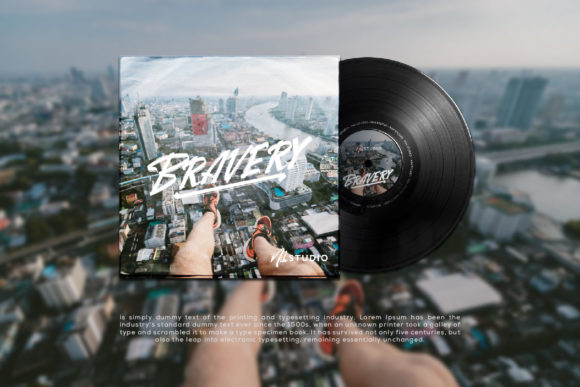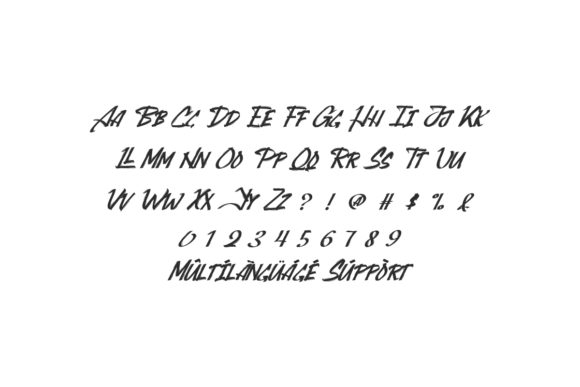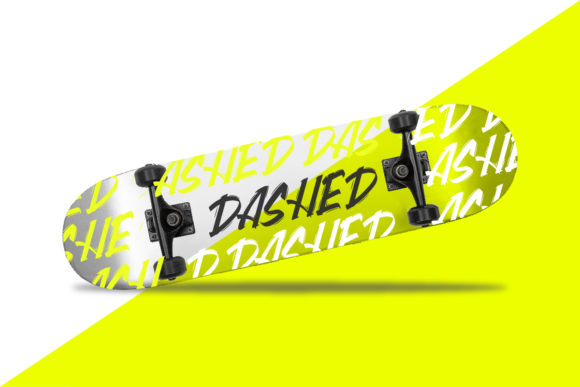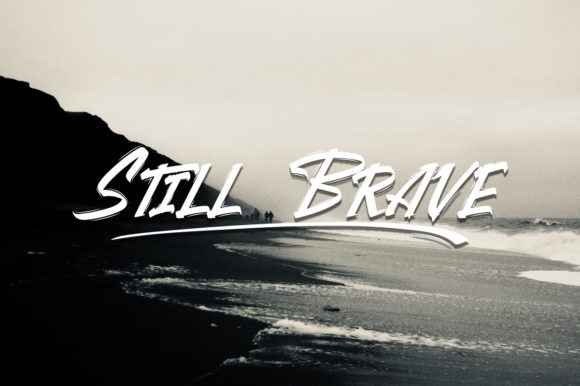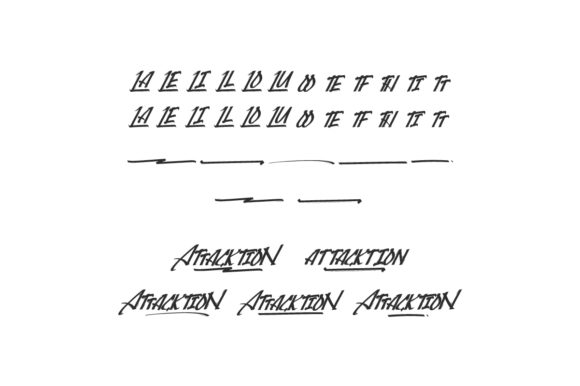
The Ultimate Guide to Attacktion Font: A Modern and Quirky Handwritten Gem
I’ll never forget the time I was working on a project for a client who wanted a bold, eye-catching headline that would make their brand stand out. I spent hours scouring font websites, but nothing seemed quite right. That was until I stumbled upon Attacktion Font. 💡
This modern and quirky handwritten font has been a game-changer for my design work, and I’m excited to share its awesomeness with you. Whether you’re a designer, crafter, or creative hobbyist, Attacktion is sure to become a favorite in your font collection.
Honest Review: What I Love (and a Few Quirks)
So, what makes Attacktion so special? Here are a few things I love about this font:
- ✨ Unique and quirky personality: Attacktion has a one-of-a-kind charm that adds a touch of whimsy to any design.
- ✅ Highly legible: Despite its playful nature, Attacktion is surprisingly easy to read, even at smaller font sizes.
- 💥 Versatile: This font works beautifully on busy backgrounds, as a standalone headline, or paired with other fonts for added visual interest.
Of course, no font is perfect, and Attacktion has a few minor quirks:
- 🤔 Limited use of uppercase letters: While the uppercase letters are lovely, they’re not as stylized as the lowercase letters. This might be a consideration if you need to use all caps.
- ⚠️ Some glyphs may require manual adjustment: Depending on your design software and the specific glyphs you’re using, you might need to tweak the spacing or positioning for optimal results.
While the true origins of Attacktion Font might be a mystery, it’s easy to imagine that its designer was inspired by the playful, quirky world of street art and modern typography. Perhaps they wanted to create a font that would add a dash of personality to any design, making it stand out in a crowded digital landscape.
| Font Name | Attacktion Font |
| Author | NihStudio |
- Q: Is Attacktion suitable for body text?
- A: While Attacktion is beautiful, it’s best used for headlines, titles, or short paragraphs. Its playful nature might make longer blocks of text harder to read.
Attacktion Font is a versatile and eye-catching addition to any design project. With its quirky personality, high legibility, and OpenType features, it’s sure to become a go-to font in your collection. Whether you’re designing for fun or working on a client project, Attacktion is sure to make your designs pop!